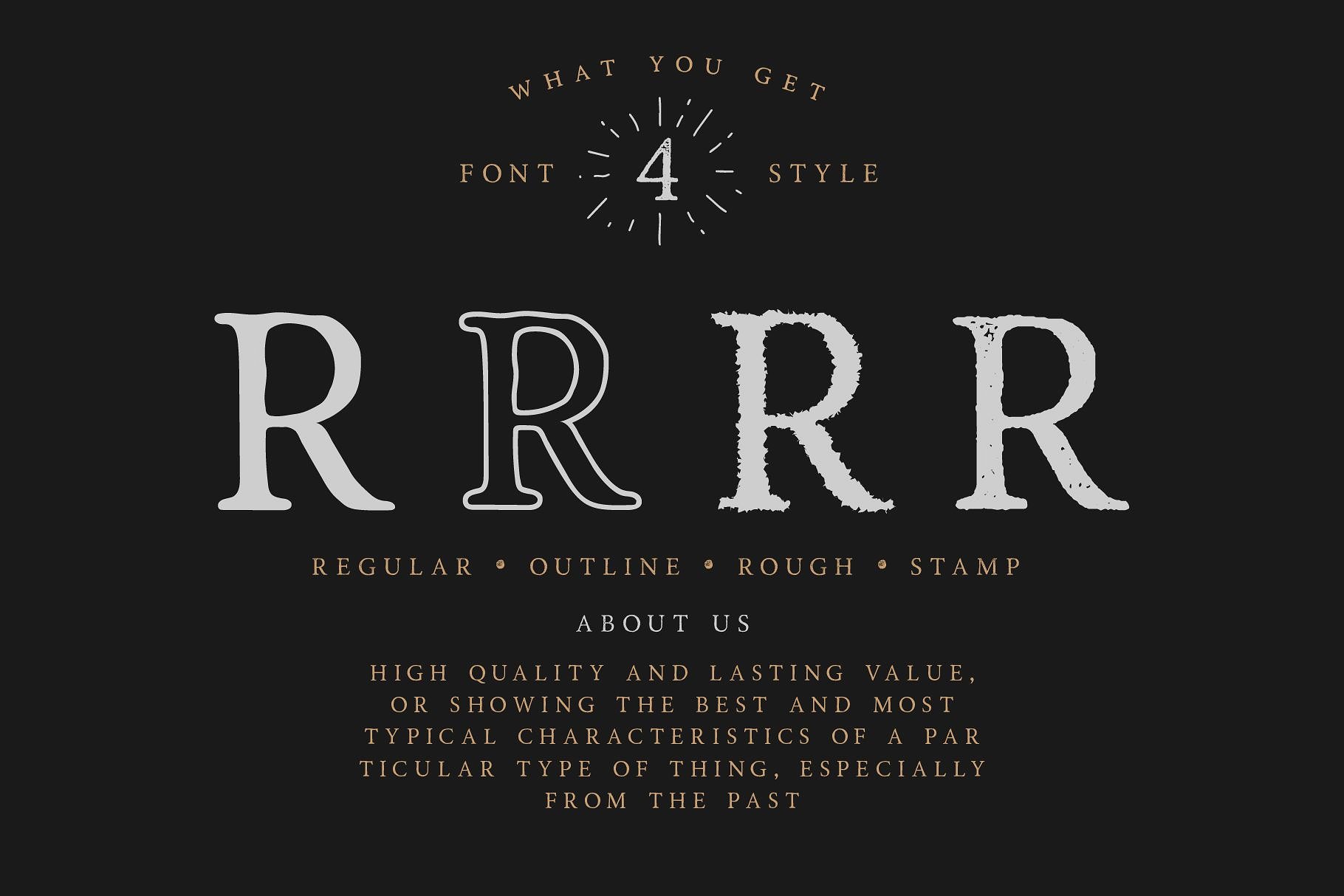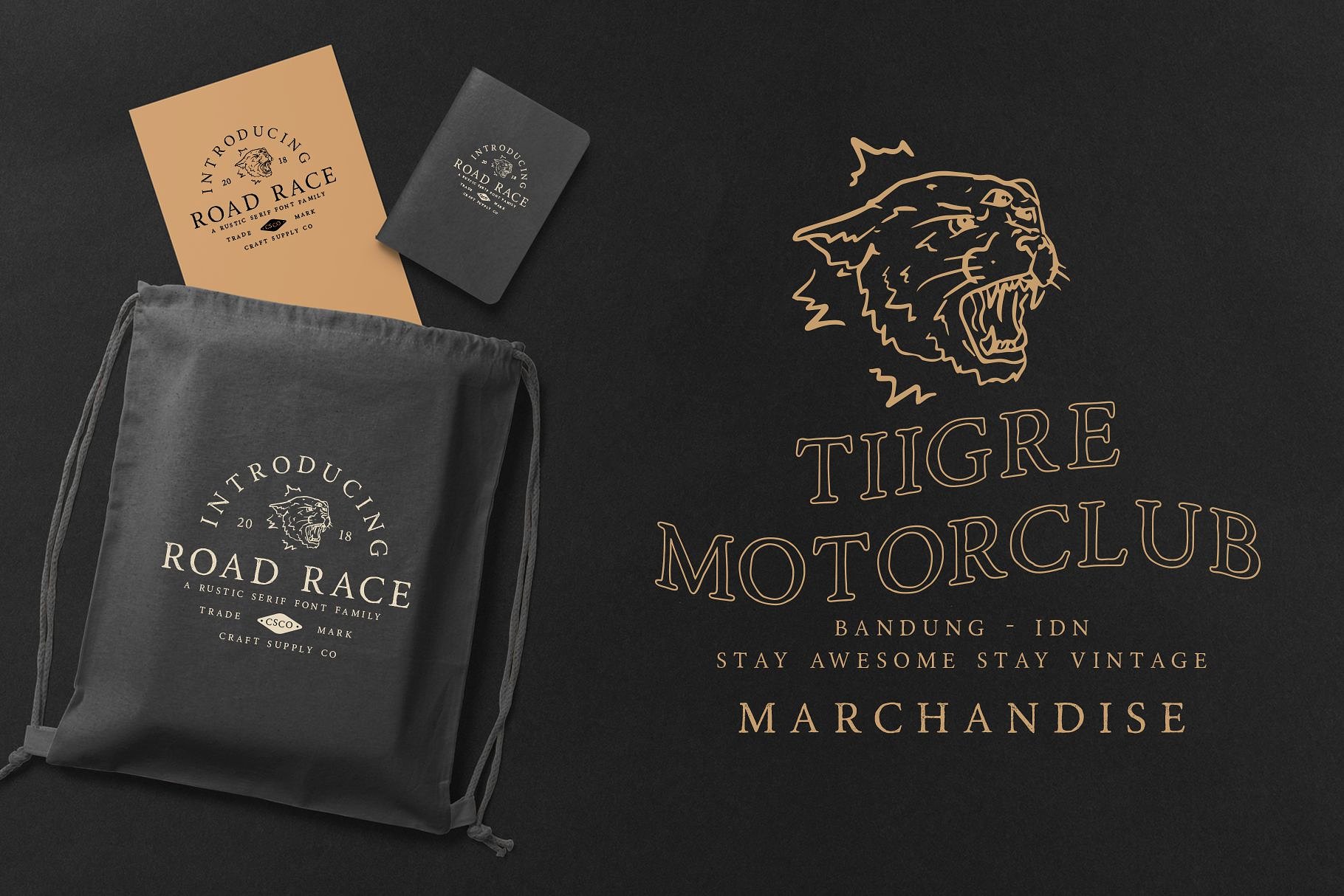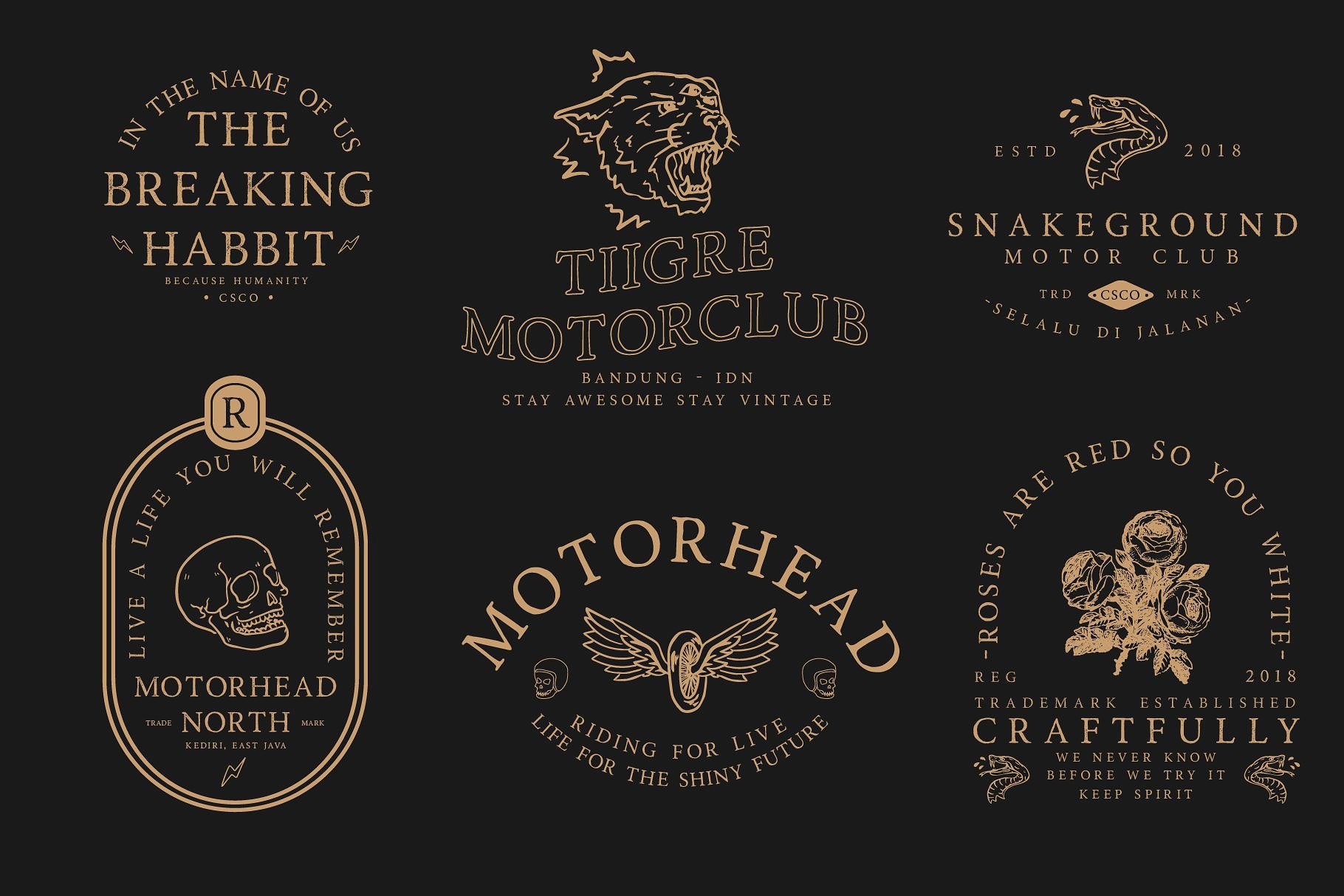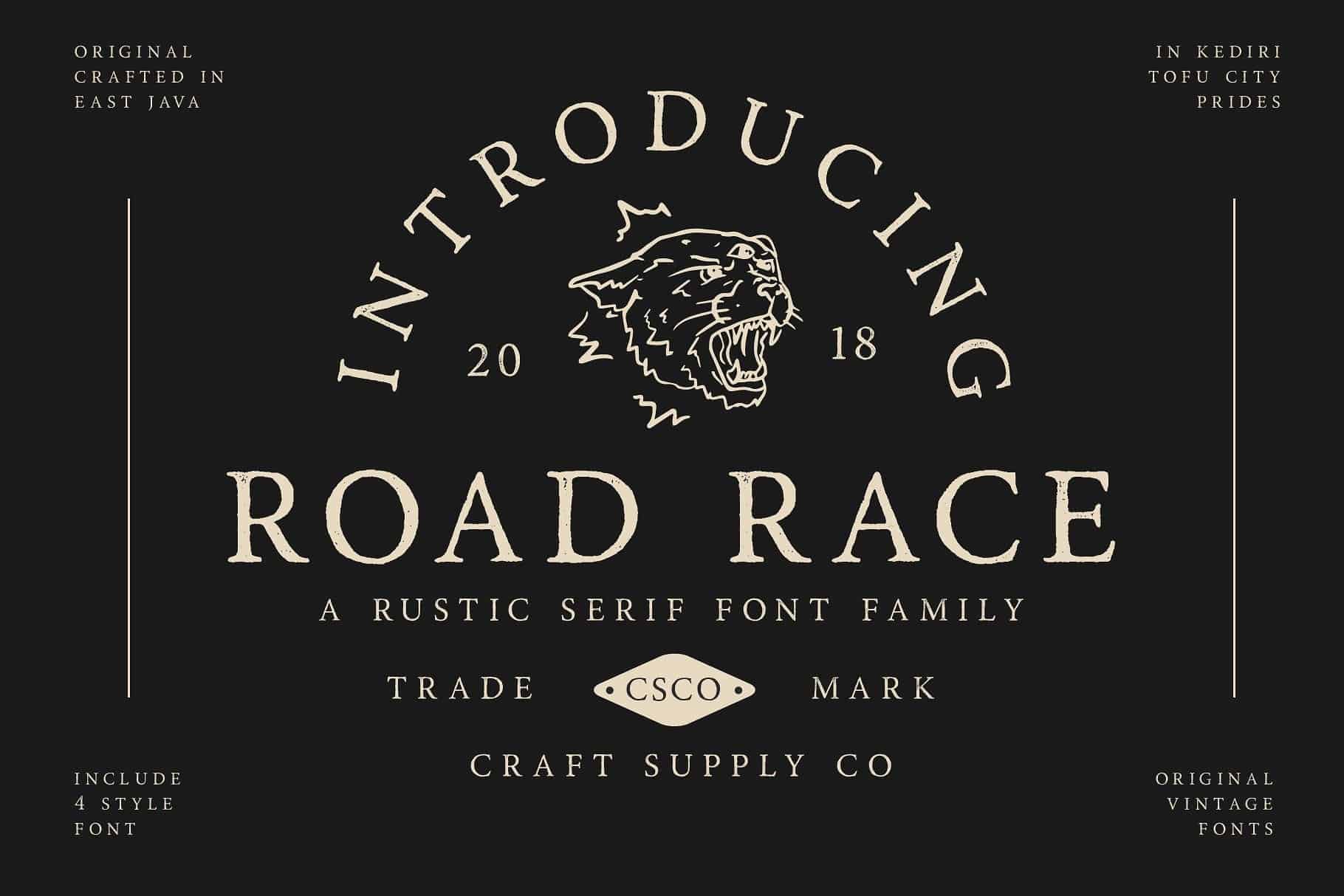
Road Race Typeface
A rustic serif font family. If you are looking for a classic style font to design a brand logo, then this font is right for you. Introducing Road Race Font. Road Race Font Family + Extras includes 4 Style Fonts. It can be used to create almost all types of design projects like print materials. Just use your imagination and some graphic design set in Extras, your project will become more alive and look great than ever with one of the Road Race font.